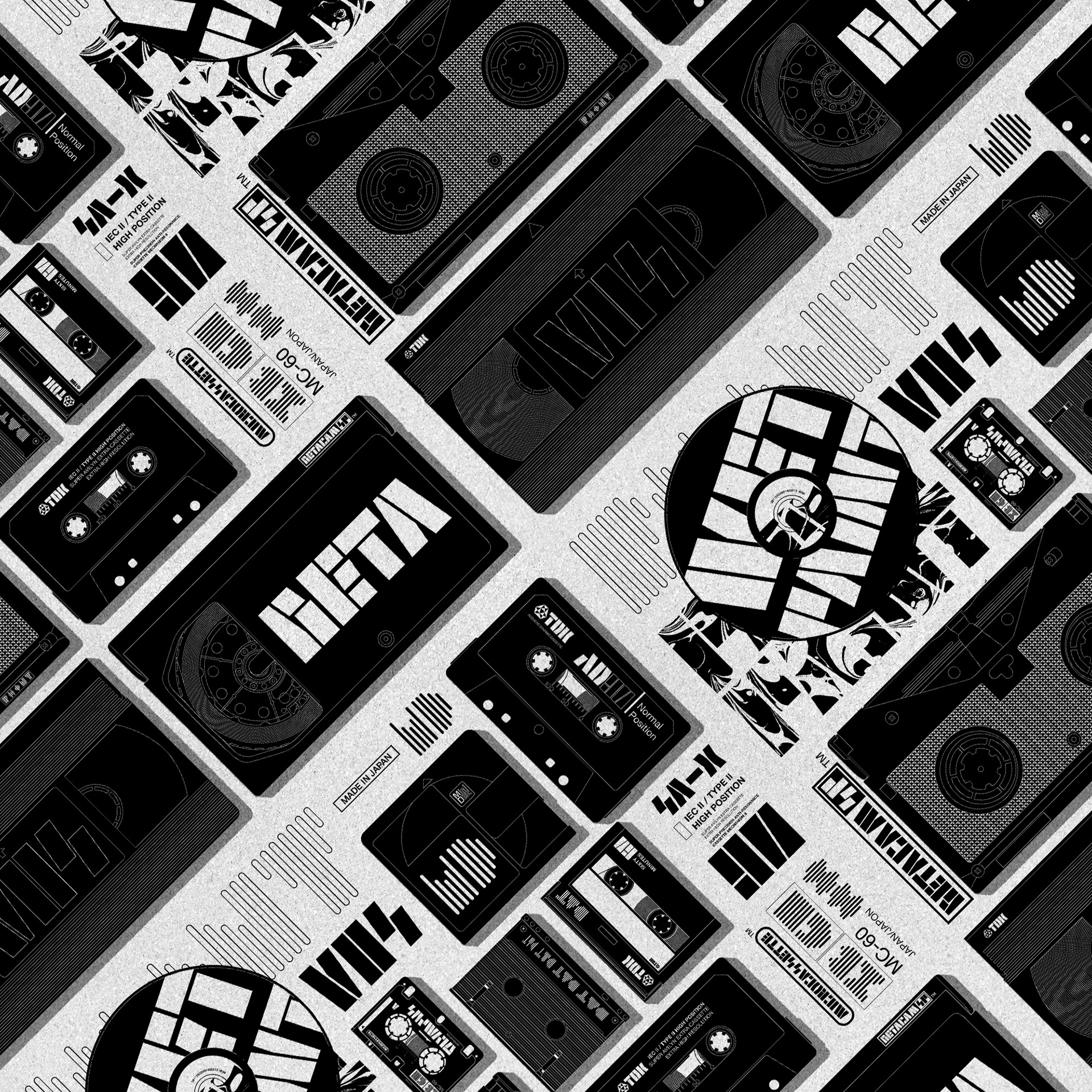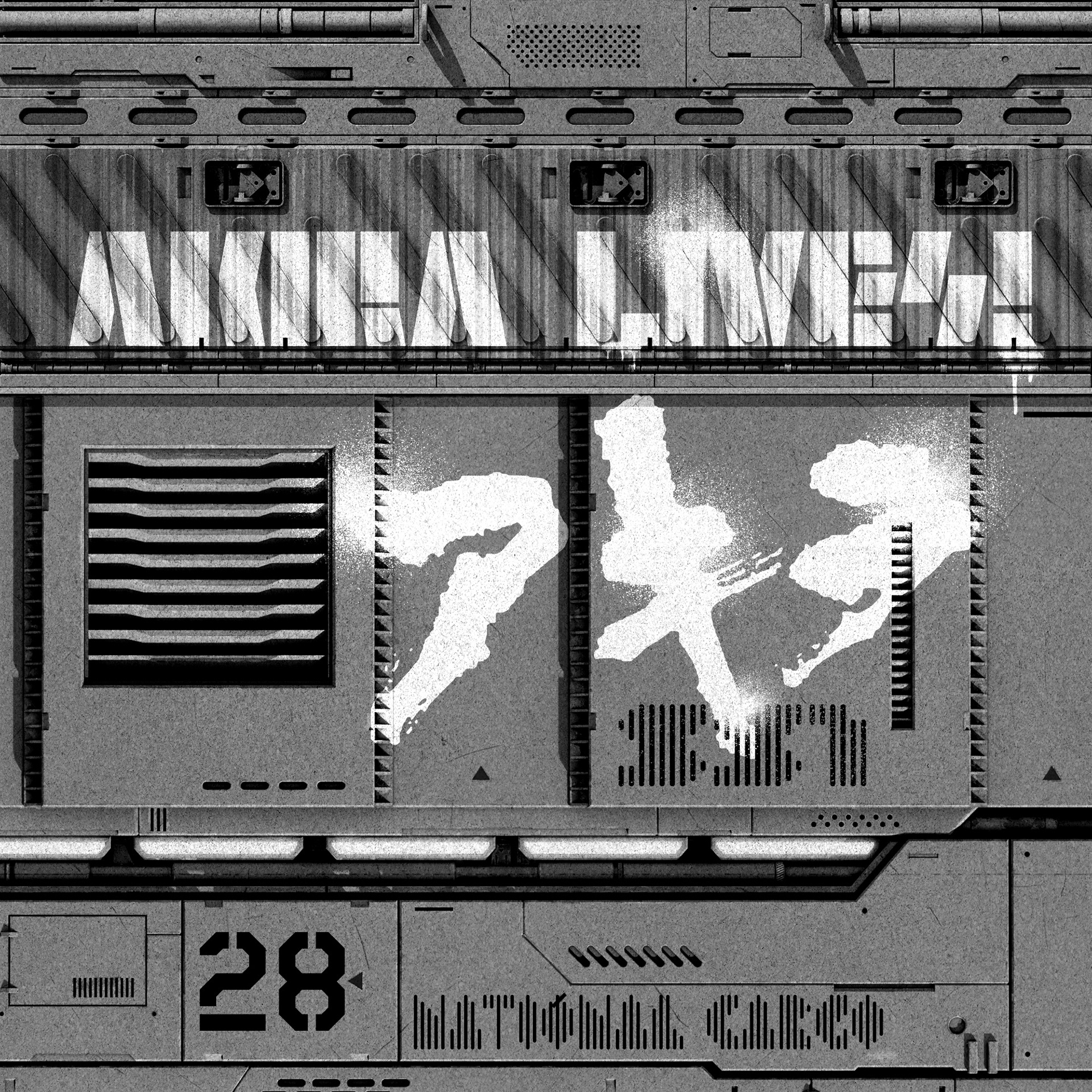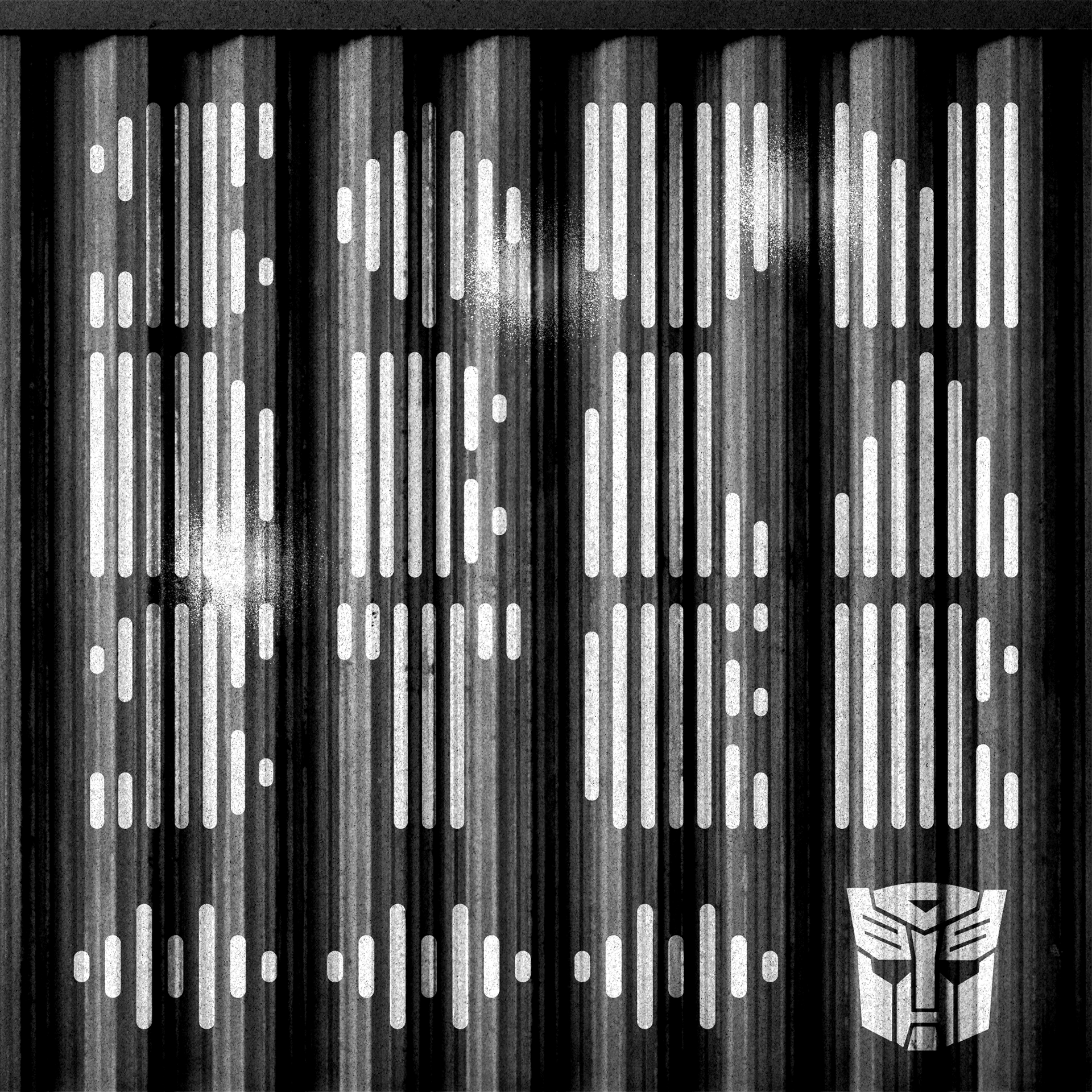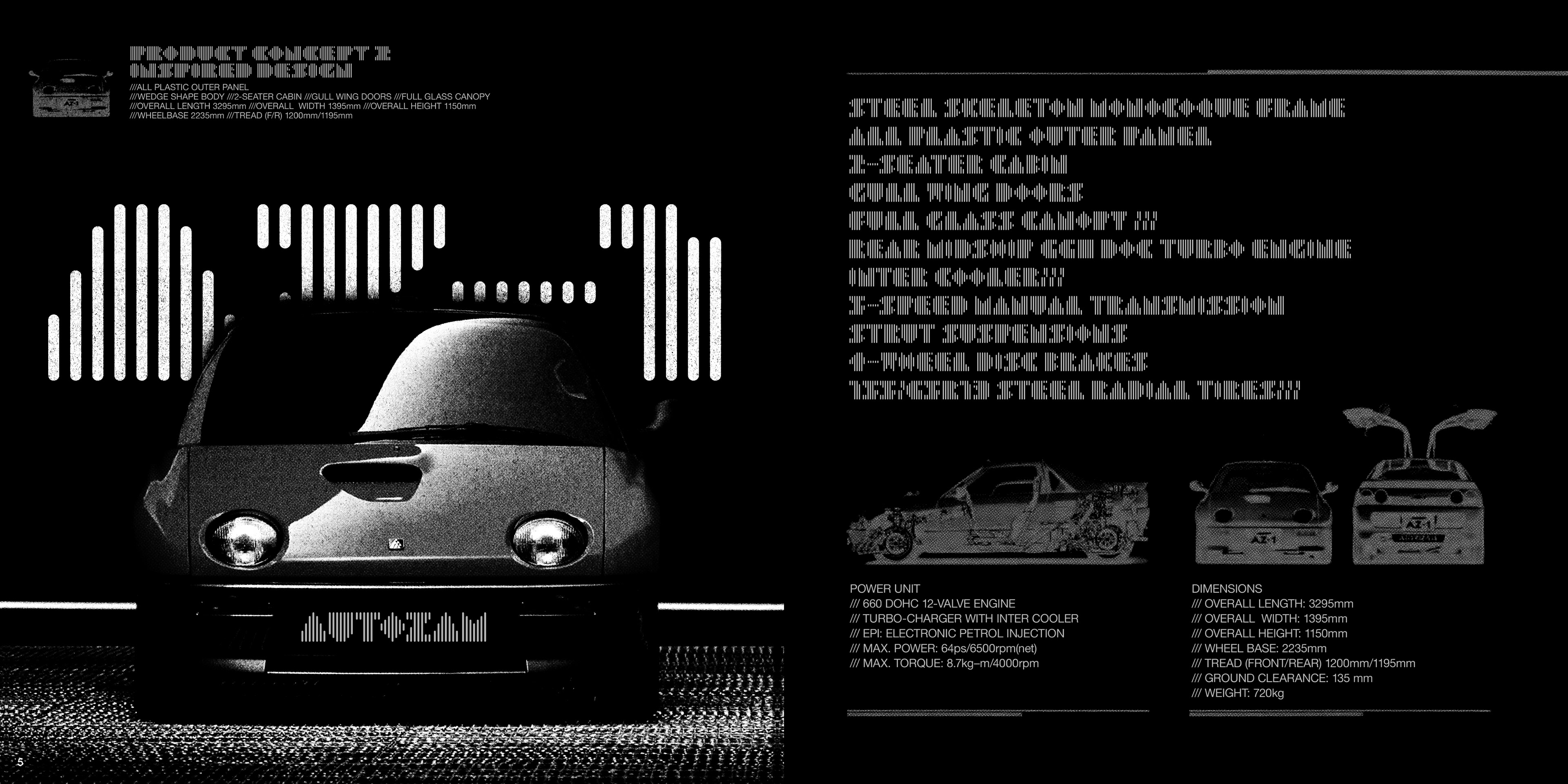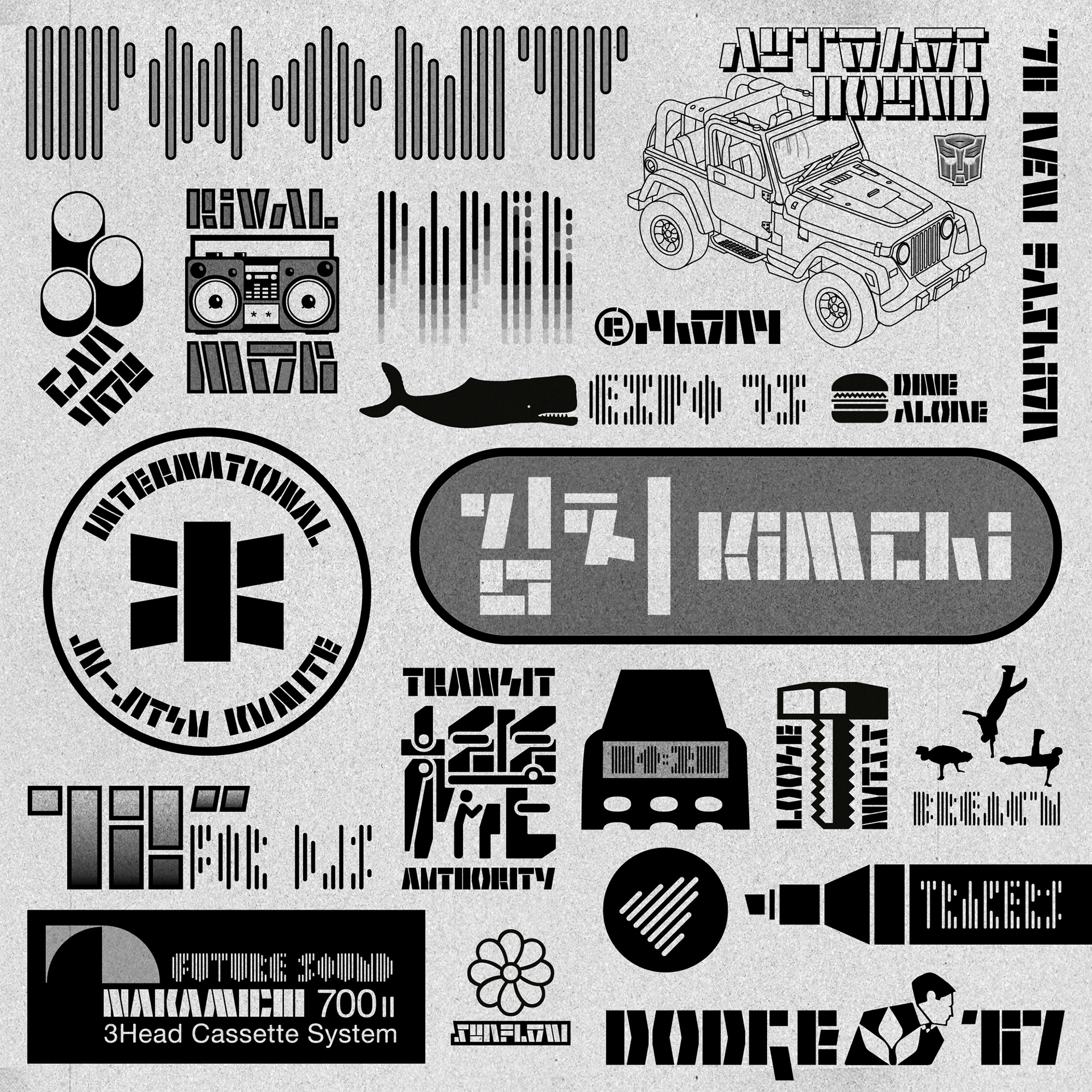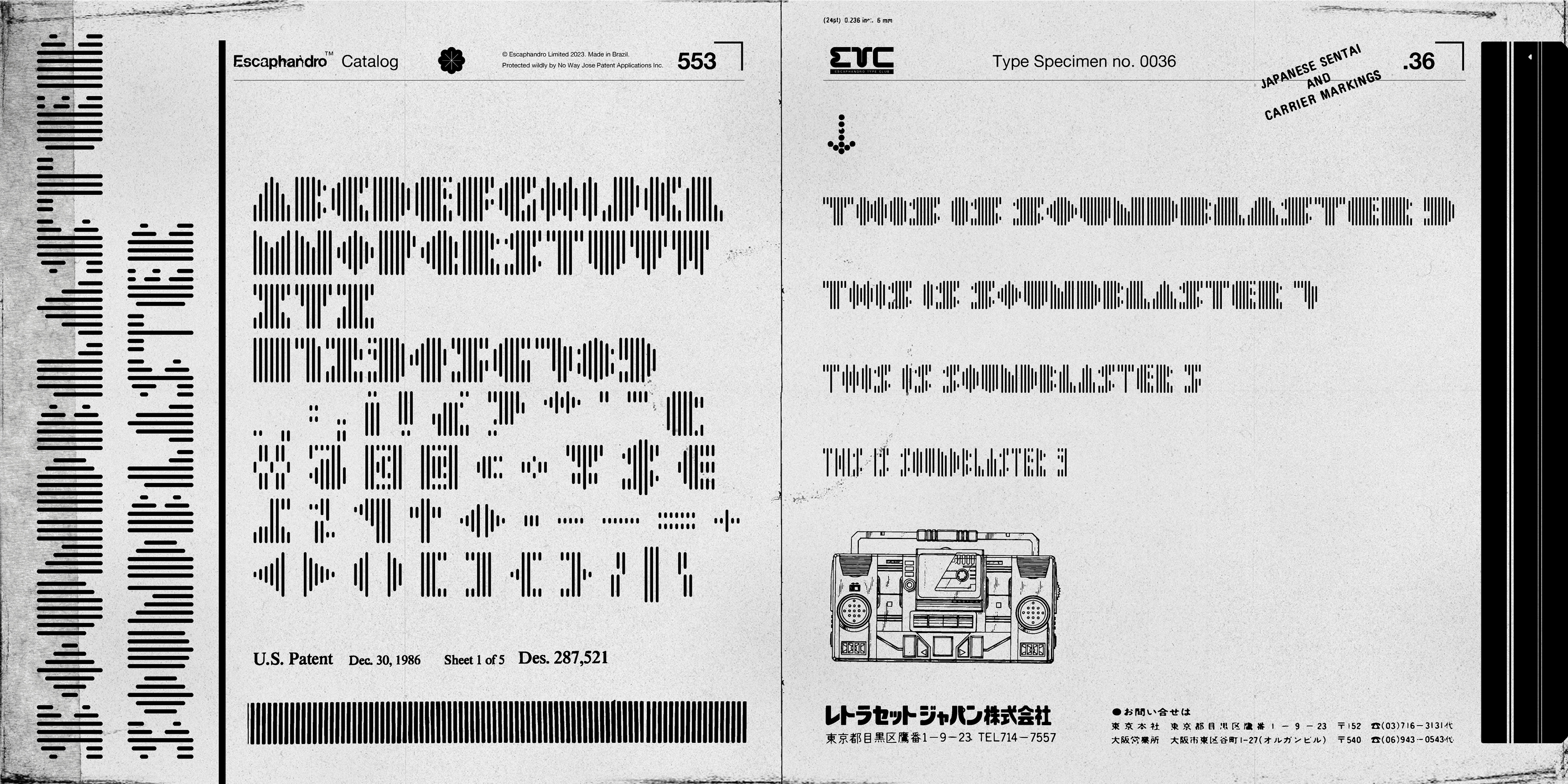
Soundblaster | typeface
Soundblaster i
s a modular typeface with 4 weights, inspired by sound graphic interfaces and speakers. Its retro-techno looks are perfect for stylish titles and logotype design.